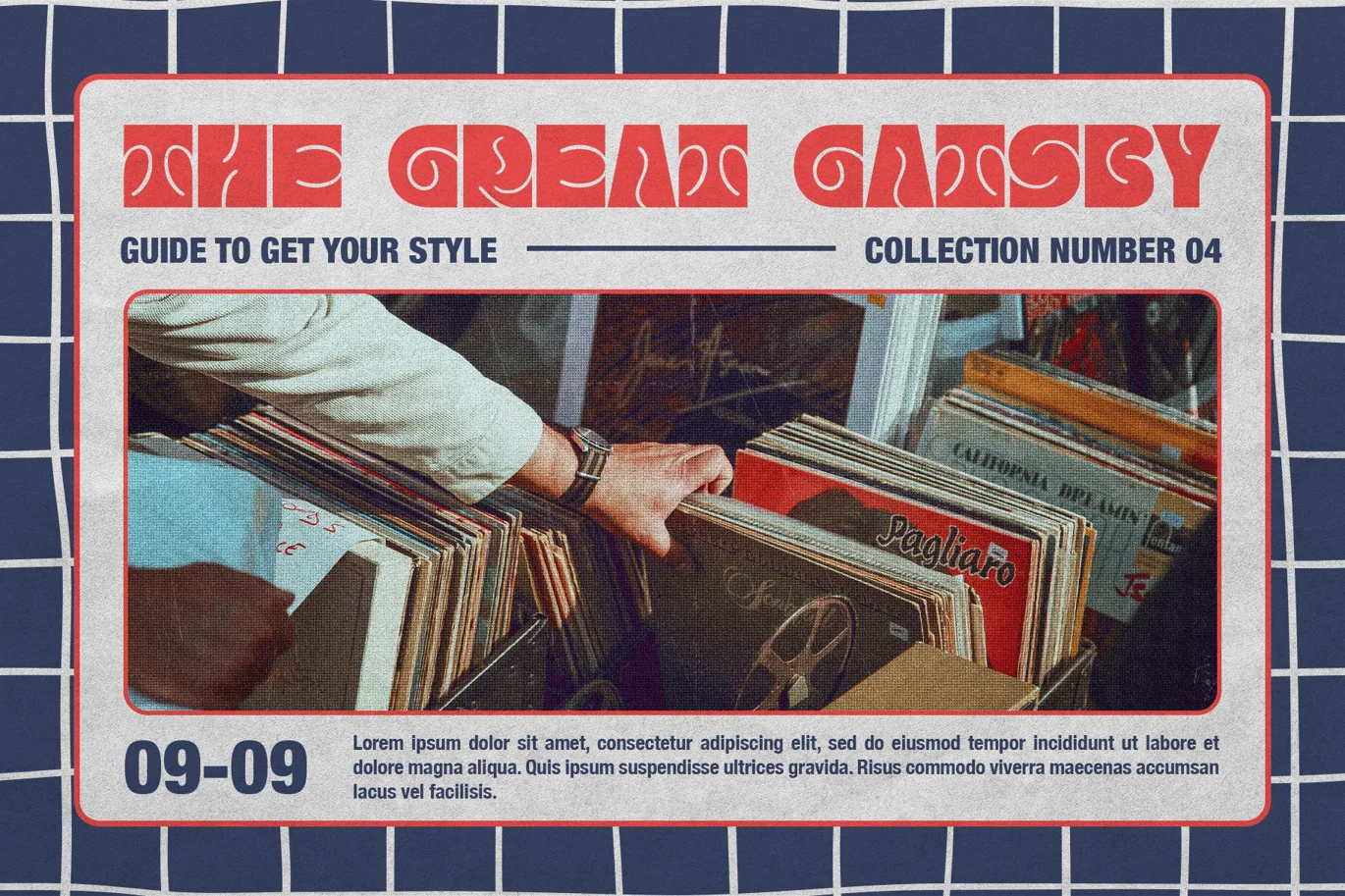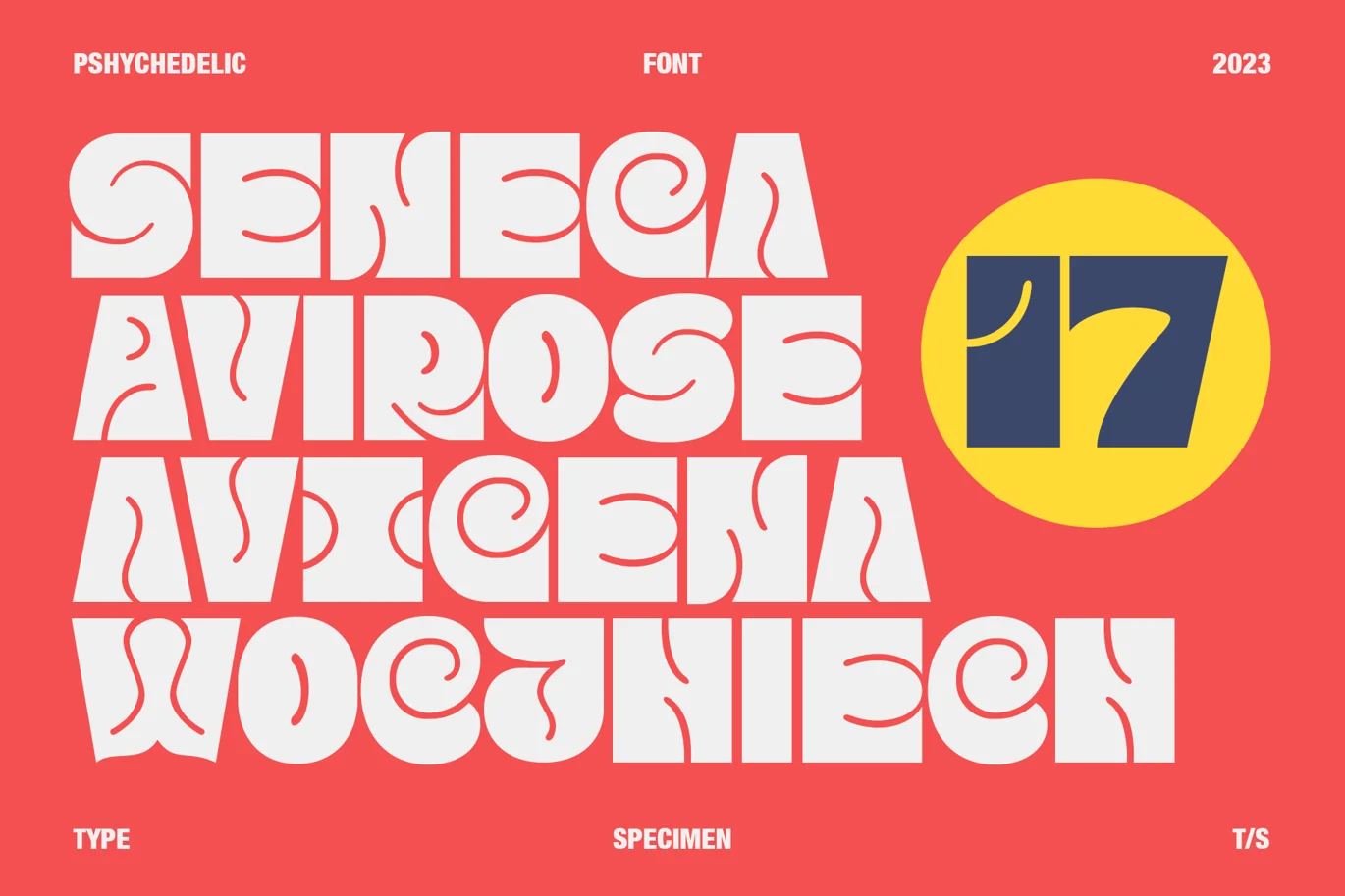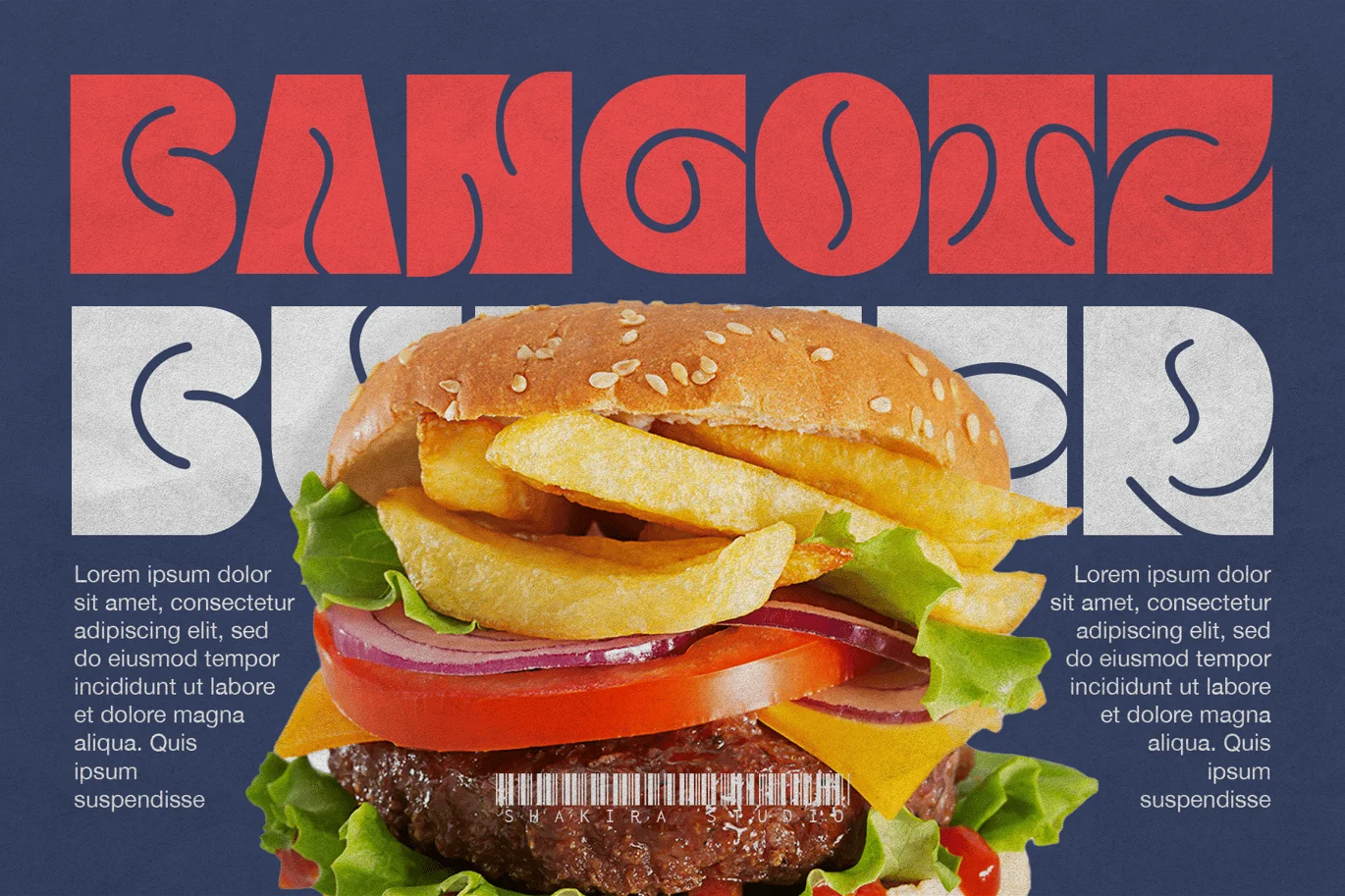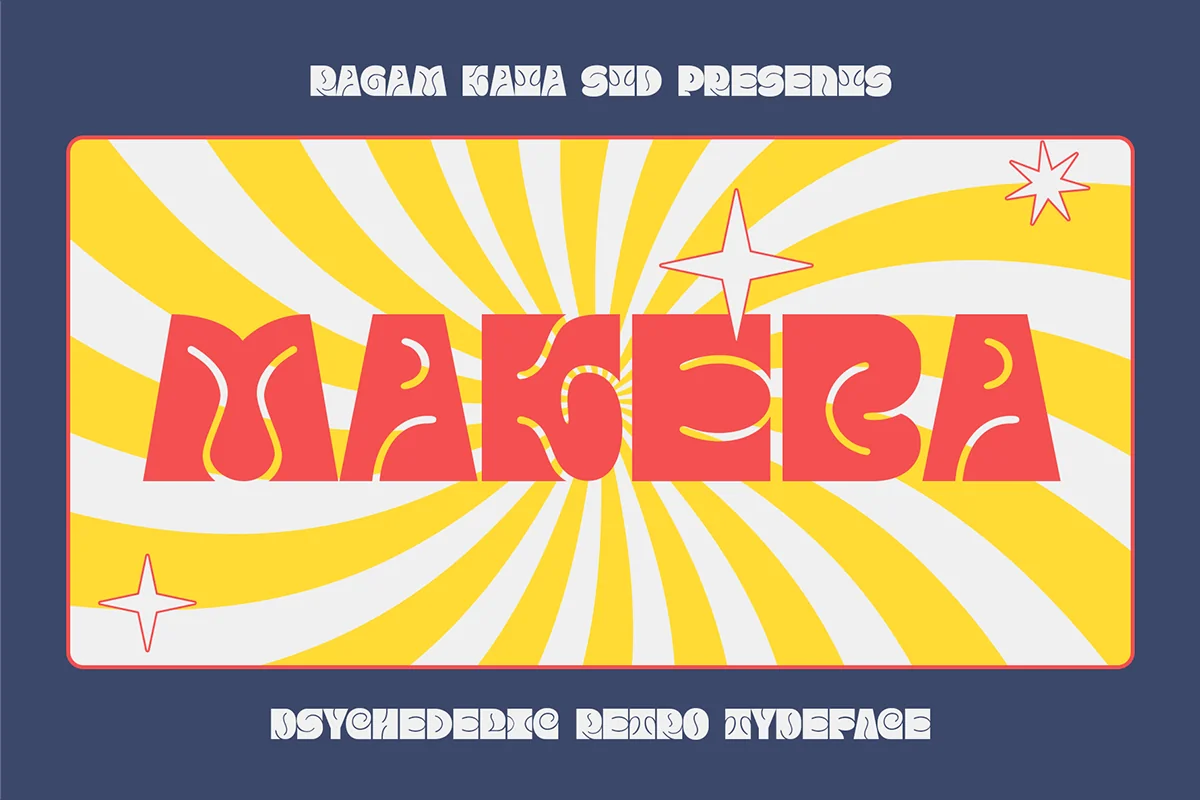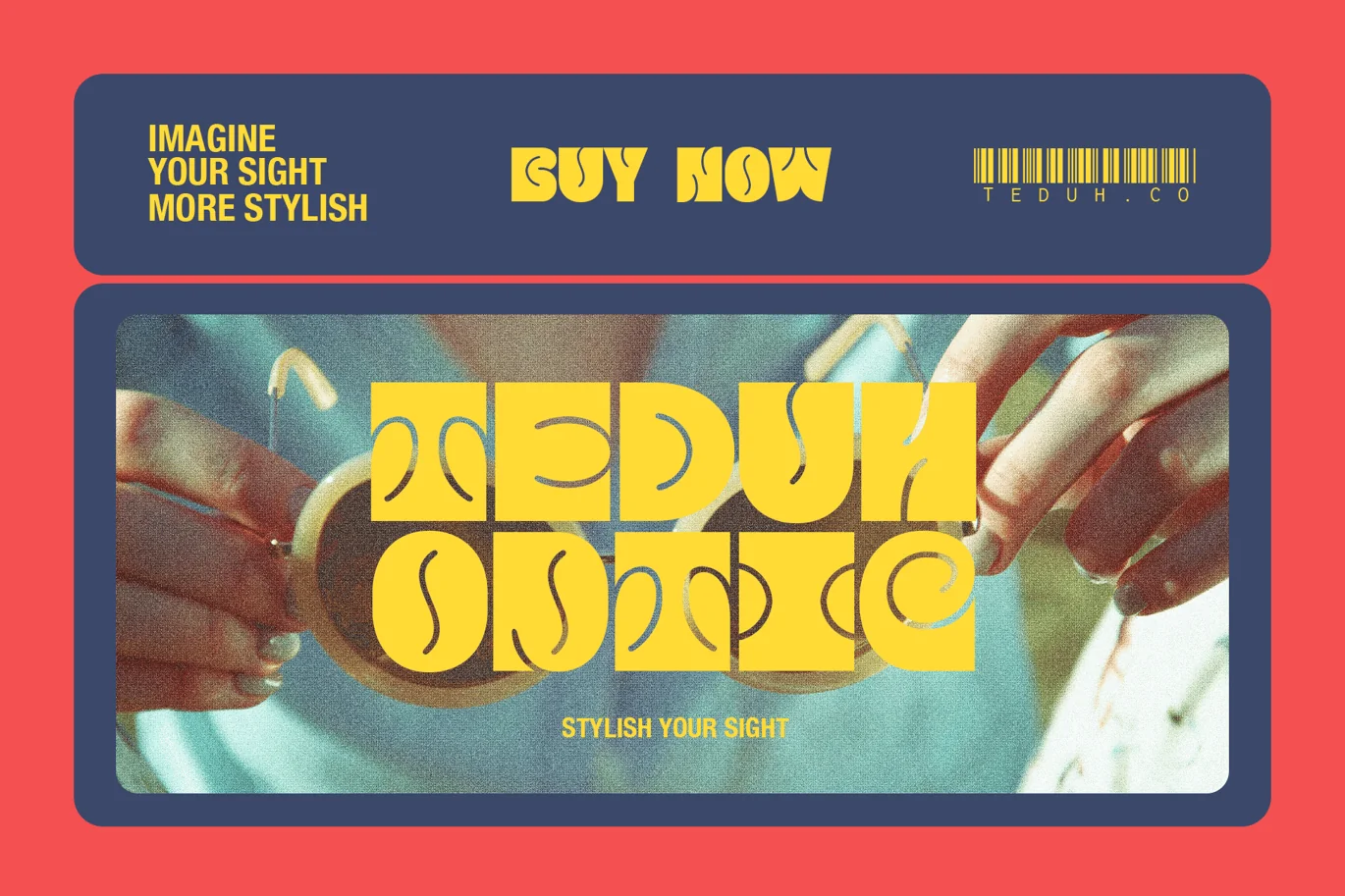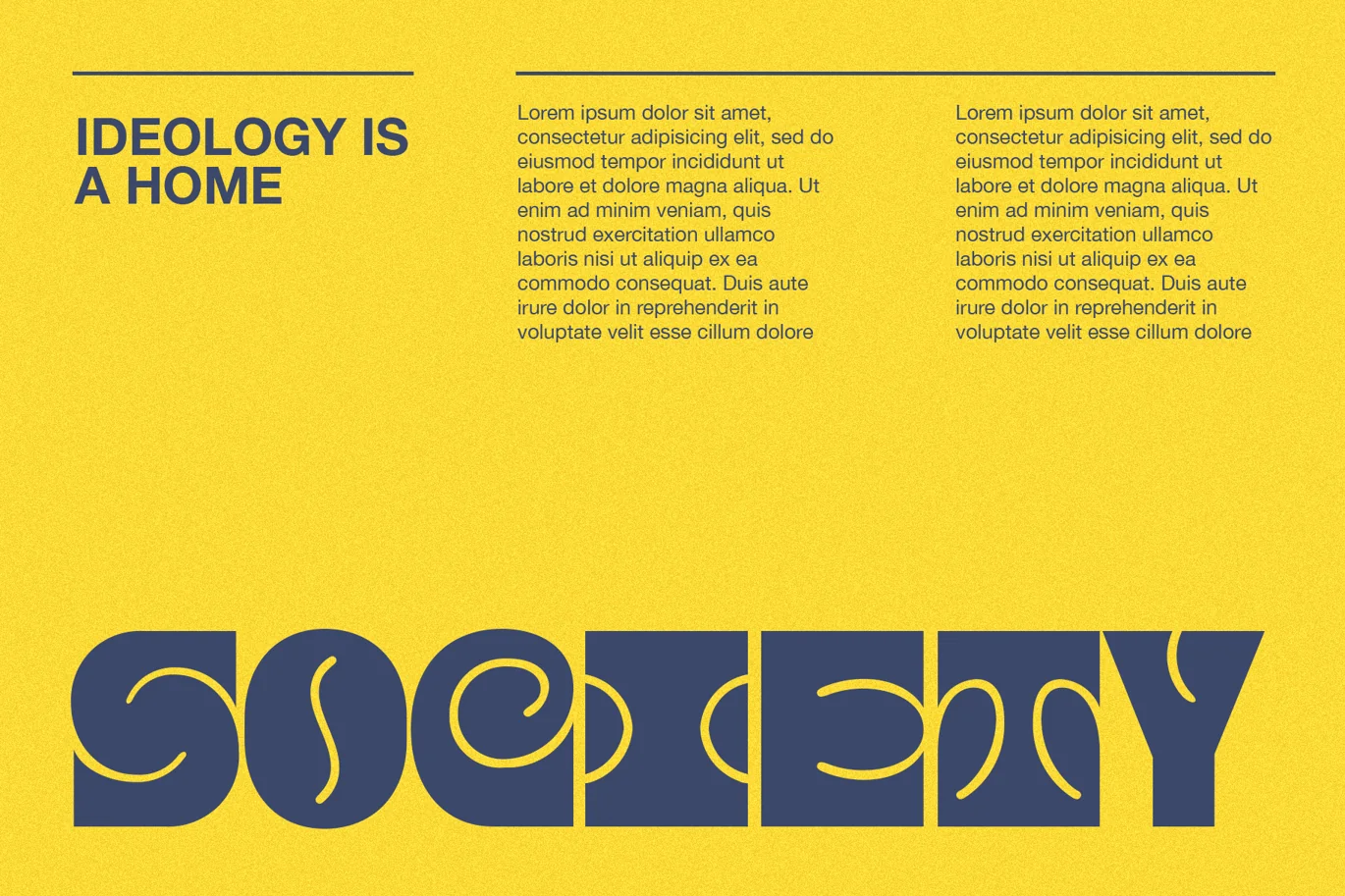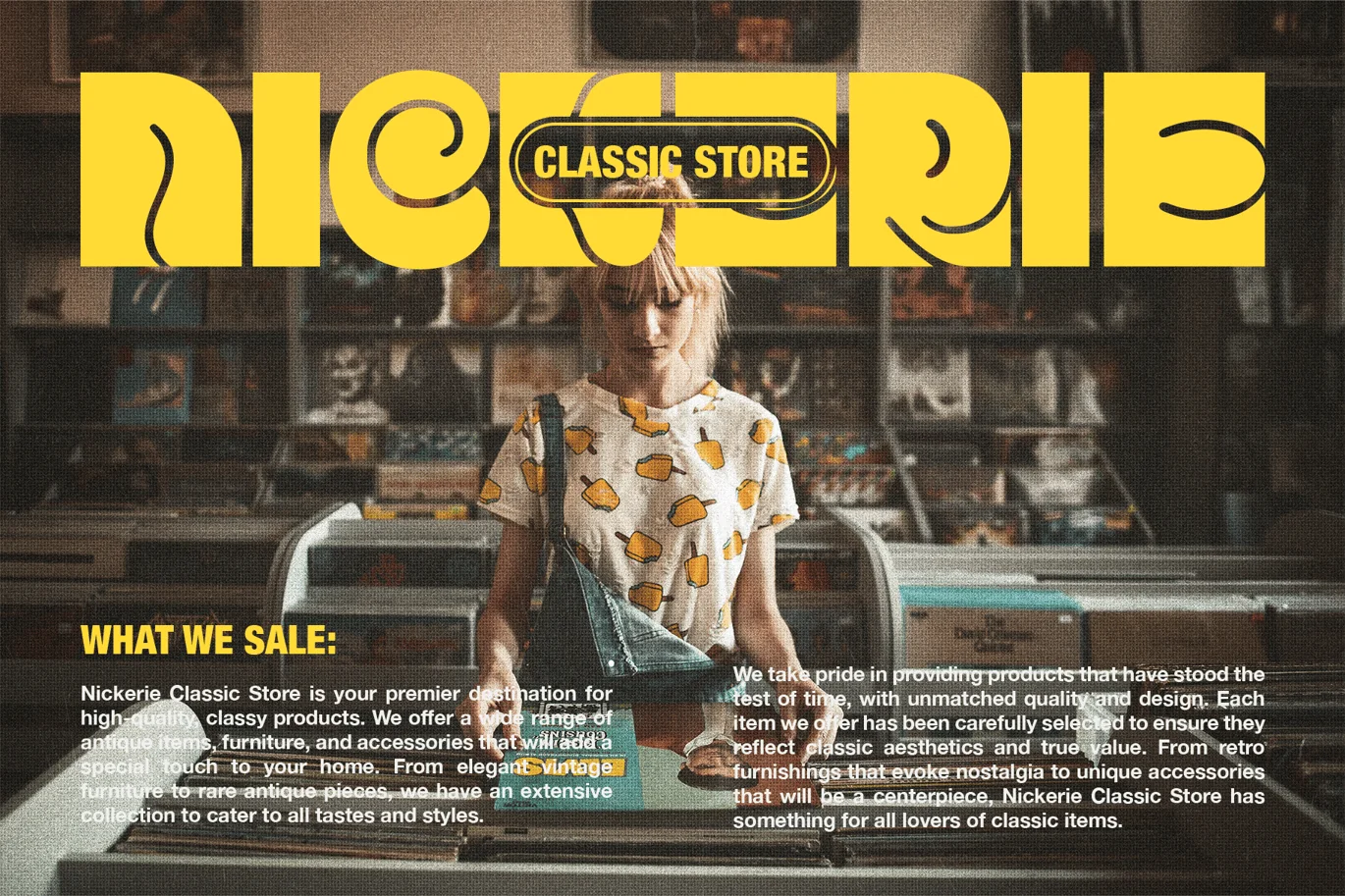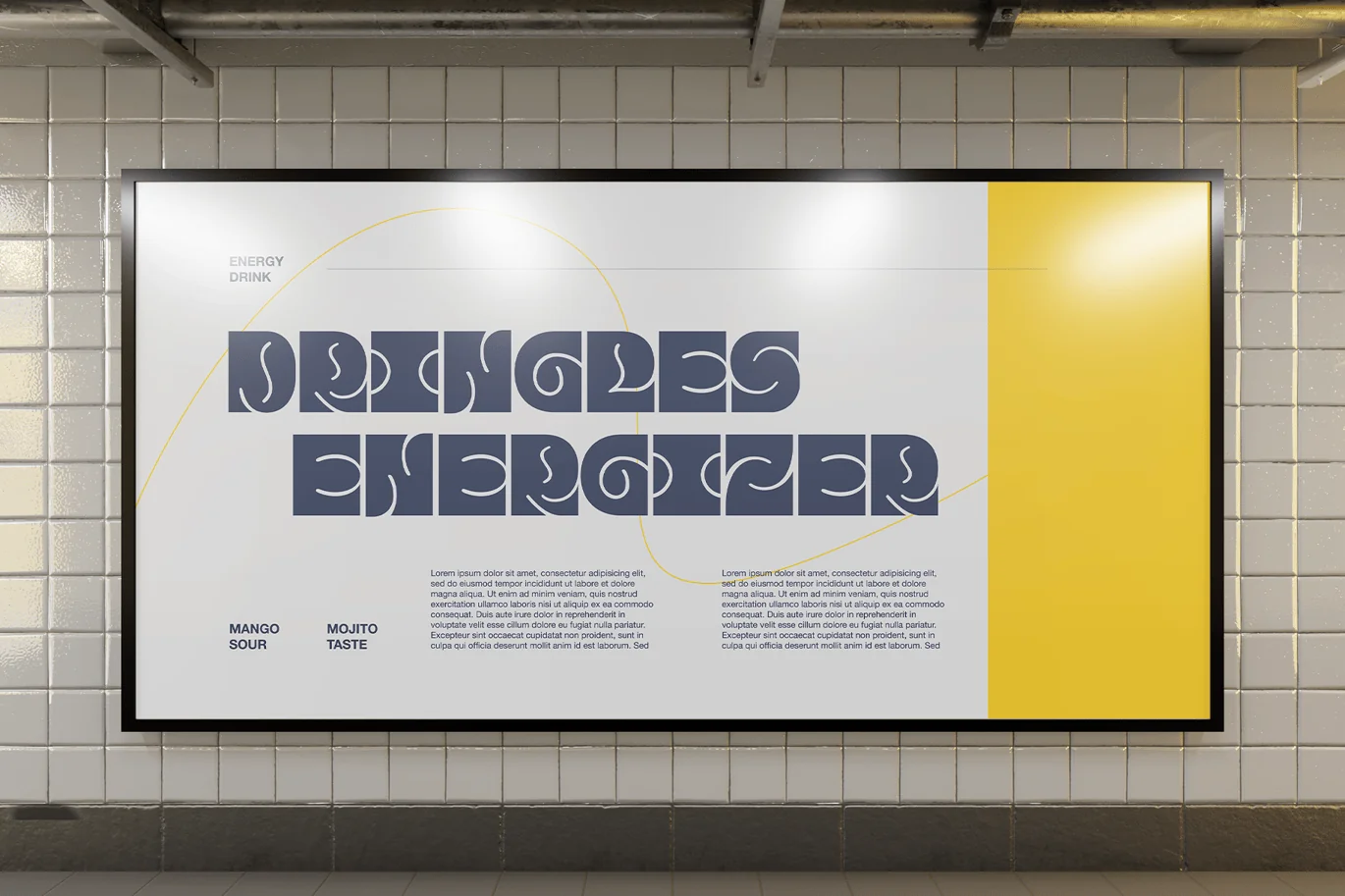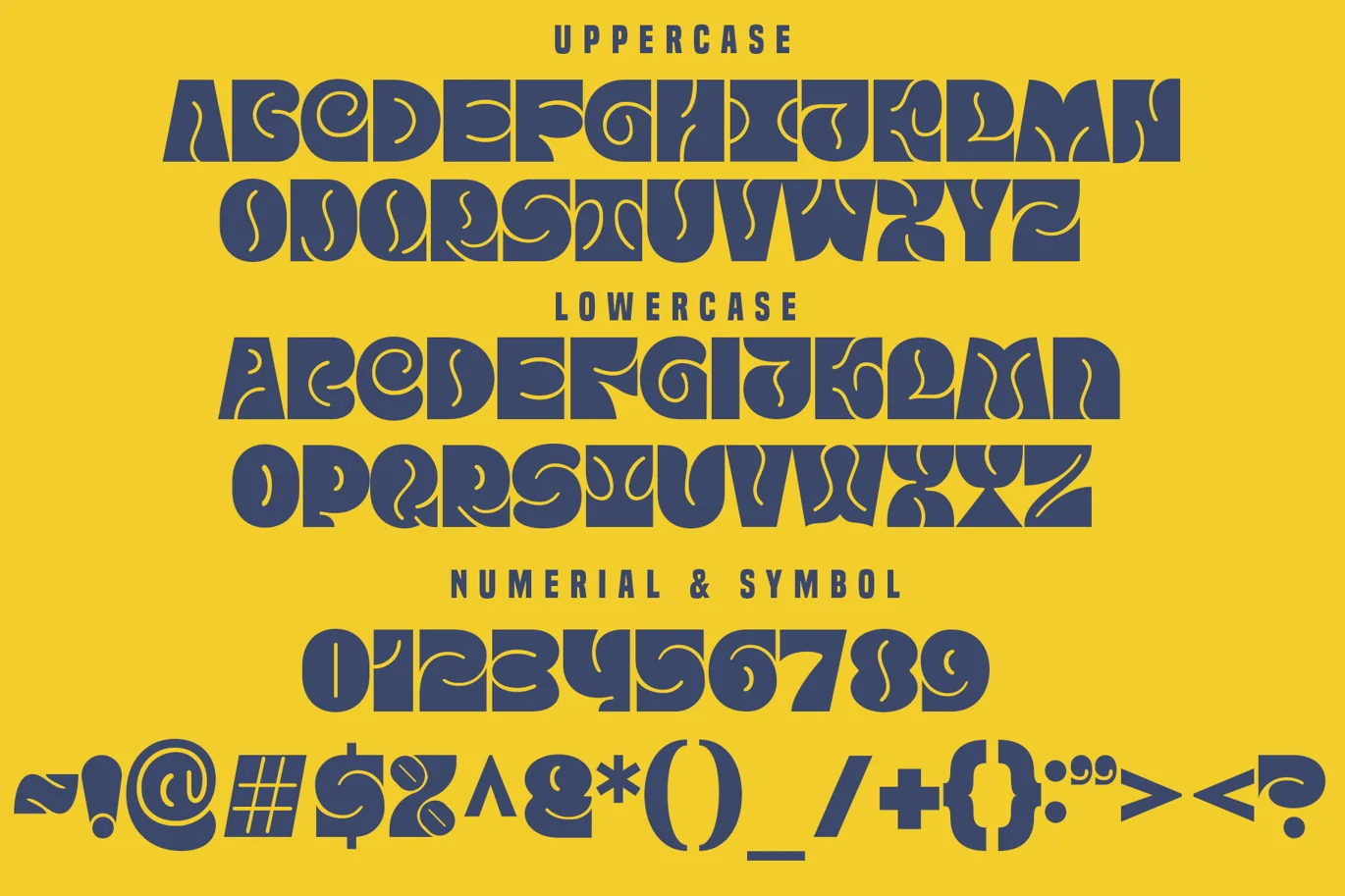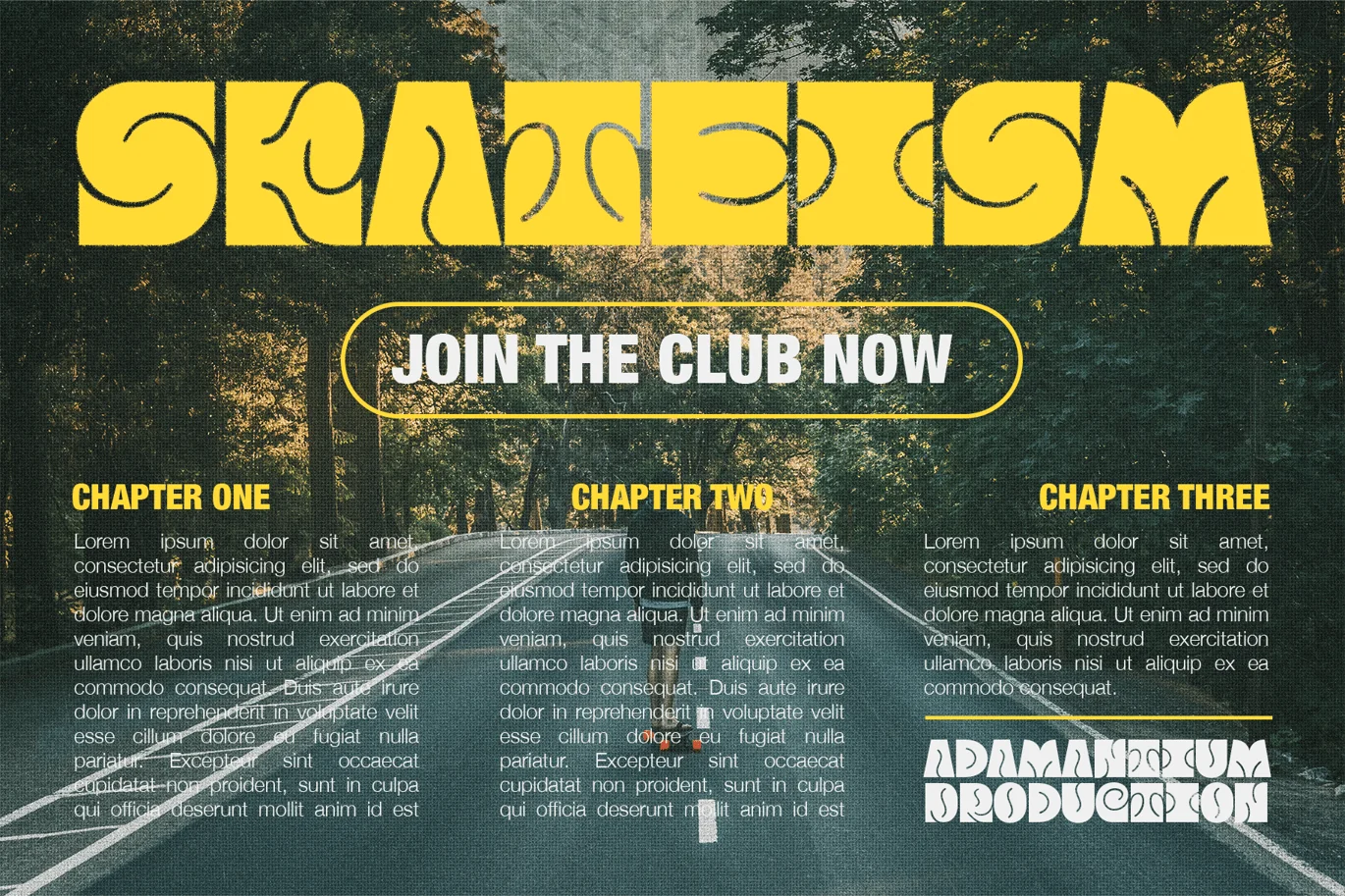
Makeba – Psychedelic Typeface
This is a writing style that might suit what you need, strong and bold, psychedelic style. Add just the right amount of vintage flair to your retro graphics with this original psychedelic-style design. Suitable for music posters, album graphics, book titles, etc. Get powerful but still funky with Makeba – Psychedelic Typeface.